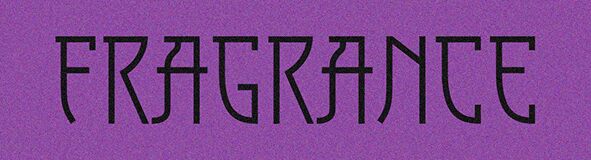
Fragrance Regular
Fragrance font by Vladimir Nikolic is a free Chinese-style font with unique calligraphic characters. The condensed width, aligned lines, and geometric appearances give this typeface an original look, turning it into a one-of-a-kind tool for many kinds of projects that could be both artistic and technical.
The font will look great in all sizes from small to large contributing to its versatility. Titles, headings, texts, advertising, banners, websites & blogs are just some of the ideas where you can use it. More options include business card titles, brochures and interior design projects.